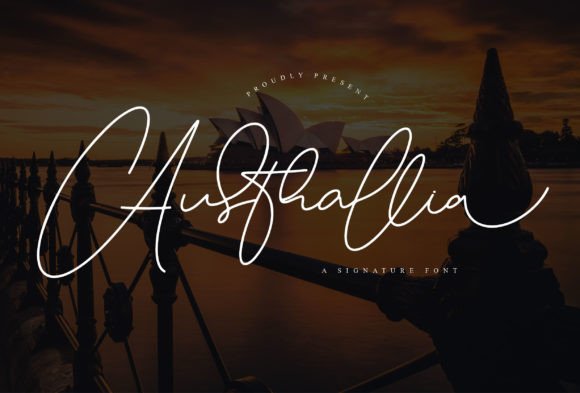
Unleash the Enchanting Allure of Australlia Font: Where Art and Technology Converge
In a realm where creativity meets innovation, Australlia Font emerges as a mesmerizing symphony of hand-drawn strokes, effortlessly embodying the essence of modernity and finesse. This script typeface transcends boundaries, captivating the hearts of tech-savvy individuals who seek to infuse their digital creations with a touch of artistic brilliance.
Australlia's meticulously crafted monoline lines exude an air of sophistication, while its simple yet striking design captivates the eye with its inherent charm. Immerse yourself in a world of elegance and simplicity as you explore the endless possibilities this font presents.
Experience the allure of a modern, simple, and playful signature script font, meticulously adorned with glyphs and open-type features that elevate your designs to new heights. Unleash your creativity and craft stunning brand names, enchanting wedding invitations, captivating business brands, and logos that resonate with your audience.
With Australlia at your fingertips, transform book covers and magazine designs into true works of art. Its versatility knows no bounds, allowing you to weave your creative magic across a multitude of platforms, captivating audiences and leaving an unforgettable impression.
But what truly sets Australlia apart is its PUA encoding, a key that unlocks a treasure trove of glyphs and swashes, empowering you to effortlessly incorporate intricate details and flourishes into your designs. The possibilities are limitless, as you craft captivating headlines, enthralling social media posts, and visually stunning graphics that captivate and engage your audience.
Embrace the artistry and innovation that Australlia embodies, and unlock the gateway to a world of creative expression. Let your imagination soar as you harness the power of this remarkable font to create designs that resonate, inspire, and leave a lasting impact.